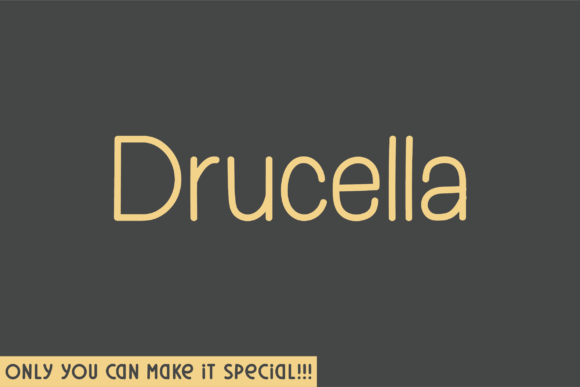
Drucella Rounded Font: A Unique and Charming Typeface
In the world of typography, there exist countless fonts that cater to diverse design needs. However, few typefaces manage to stand out from the rest, exuding a distinct charm that captivates audiences. Drucella Rounded is one such font that has been making waves in the design community, and for good reason. This distinctive typeface boasts naturally handwritten elements that lend a unique appeal to its form, making it an excellent choice for various creative projects.
The Distinctive Features of Drucella Rounded
One of the most striking aspects of Drucella Rounded is its individual characters, each of which is distinctly reflected without any alterations to their indentation. This attention to detail introduces a captivating appeal to the script, setting it apart from more conventional typefaces. The font’s naturally handwritten elements evoke a sense of warmth and personality, making it perfect for designs that require a personal touch.
Ideal for a Variety of Creative Projects
Drucella Rounded is a versatile font that can be used for a wide range of creative projects. Whether you’re looking to craft meaningful quotes, jot down heart-warming notes, design engaging tees, or add interest to product designs, this font is an excellent choice. Its unique charm and character make it an ideal fit for designers who want to add a personal touch to their work.
- Quotes and Notes: Drucella Rounded is perfect for creating inspiring quotes, journal entries, or love letters. Its handwritten elements add a touch of warmth and sincerity, making the text feel more personal and relatable.
- T-Shirt Designs: The font’s unique charm makes it an excellent choice for designing engaging tees. Whether you’re creating a funny slogan or a thought-provoking message, Drucella Rounded is sure to turn heads.
- Product Design: Drucella Rounded can also be used to add interest to product designs. From packaging labels to product descriptions, this font can help you create a distinctive brand voice that resonates with your target audience.
The Benefits of Using Drucella Rounded
So why choose Drucella Rounded over other fonts? Here are just a few benefits of using this unique typeface:
- Unique Appeal: Drucella Rounded’s naturally handwritten elements and distinctive character reflections make it a standout font that can help you differentiate your designs from the competition.
- Versatility: This font can be used for a wide range of creative projects, from quotes and notes to t-shirt designs and product labels.
- Emotional Connection: Drucella Rounded’s warm and personal feel can help you create an emotional connection with your audience, making your designs more relatable and engaging.
Get Ready to Be Ensnared by the Intriguing Beauty of Drucella Rounded
In conclusion, Drucella Rounded is a font that will captivate you with its intriguing beauty. Its unique charm, versatility, and emotional appeal make it an excellent choice for designers who want to add a personal touch to their work. Whether you’re looking to create meaningful quotes, design engaging tees, or add interest to product designs, Drucella Rounded is the perfect font for you.